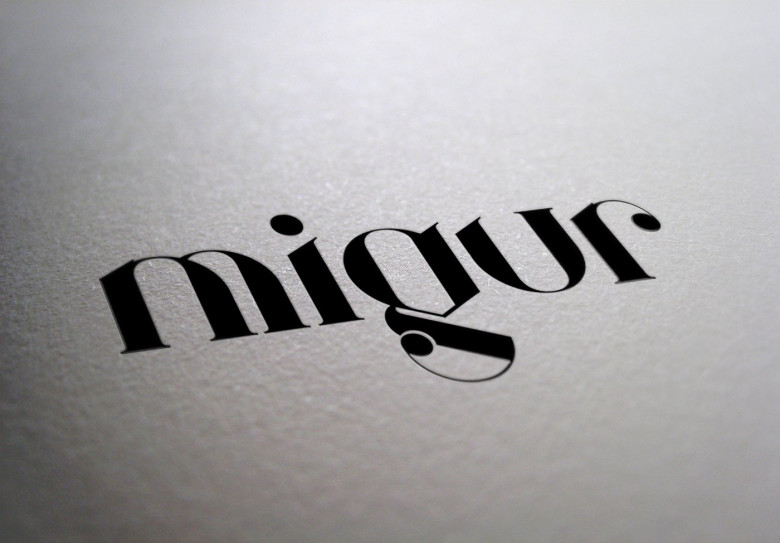
Migur Font
Migur typeface is a design of Wassim Awadallah. Migur Font is a free serif font with artistic curves and perfectly pro- portional letters. It is an all lowercase typeface with intention to update with uppercase and special characters. Migur typeface including 1 weight. This font format on befonts much, please look for more.